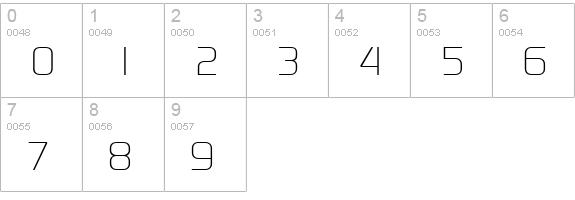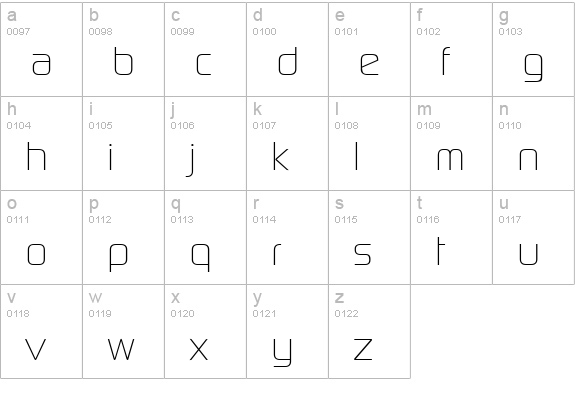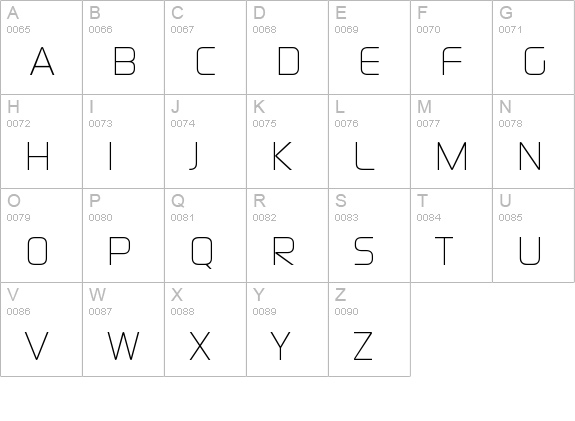
Continuum Light Font Details
Continuum Light is a refined, elegant variant in the Continuum typeface family \xE2\x80\x94 well suited to elegant body text, refined sub-headings, and luxury branding.
Continuum Light is a modern and elegant font that exudes sophistication and style. Its clean lines and sleek design make it perfect for a wide range of projects, from branding to editorial design. This versatile typeface is ideal for creating a polished and professional look. What sets Continuum Light apart is its subtle balance of sophistication and simplicity, making it a timeless choice for any design project. Whether you are working on a logo, website, or print materials, this font will elevate your work to the next level. The best part? Continuum Light is available for free download at FontsMarket.com. You can easily access this high-quality font and enhance your design projects without any cost. Don't miss out on the opportunity to add Continuum Light to your font collection and elevate your designs with its timeless appeal.